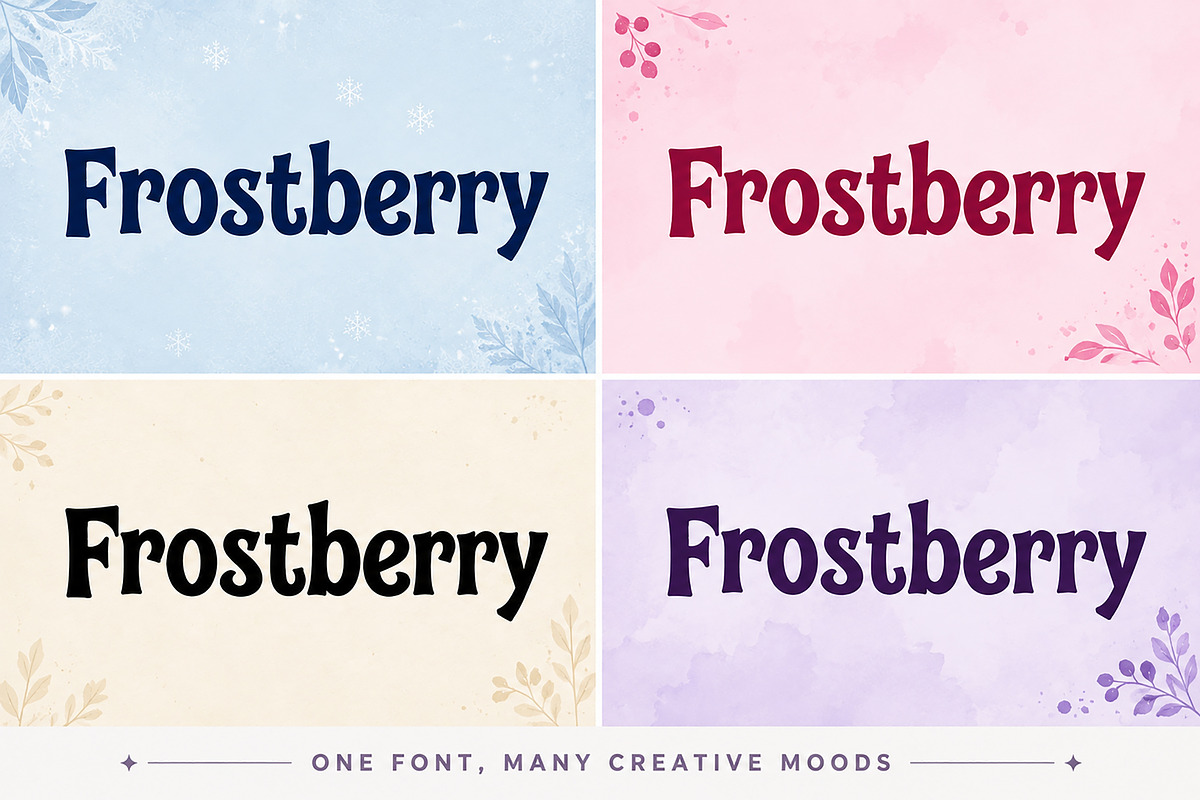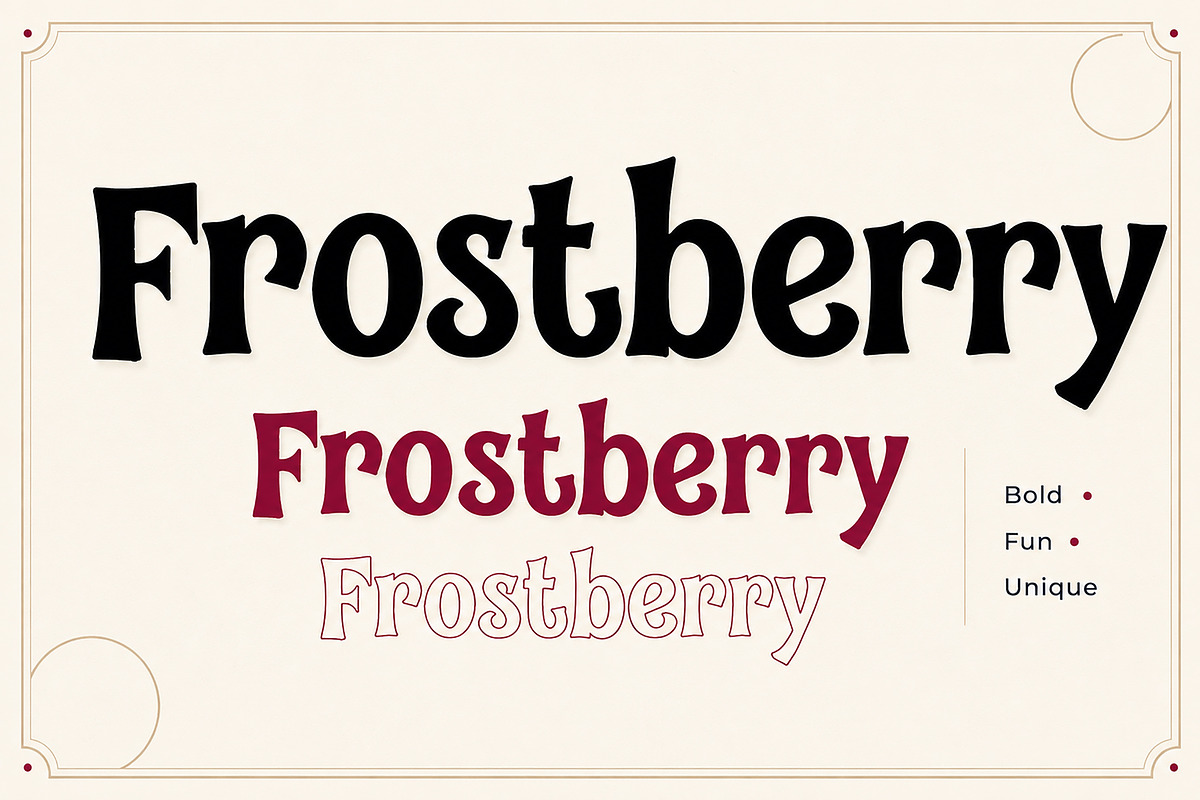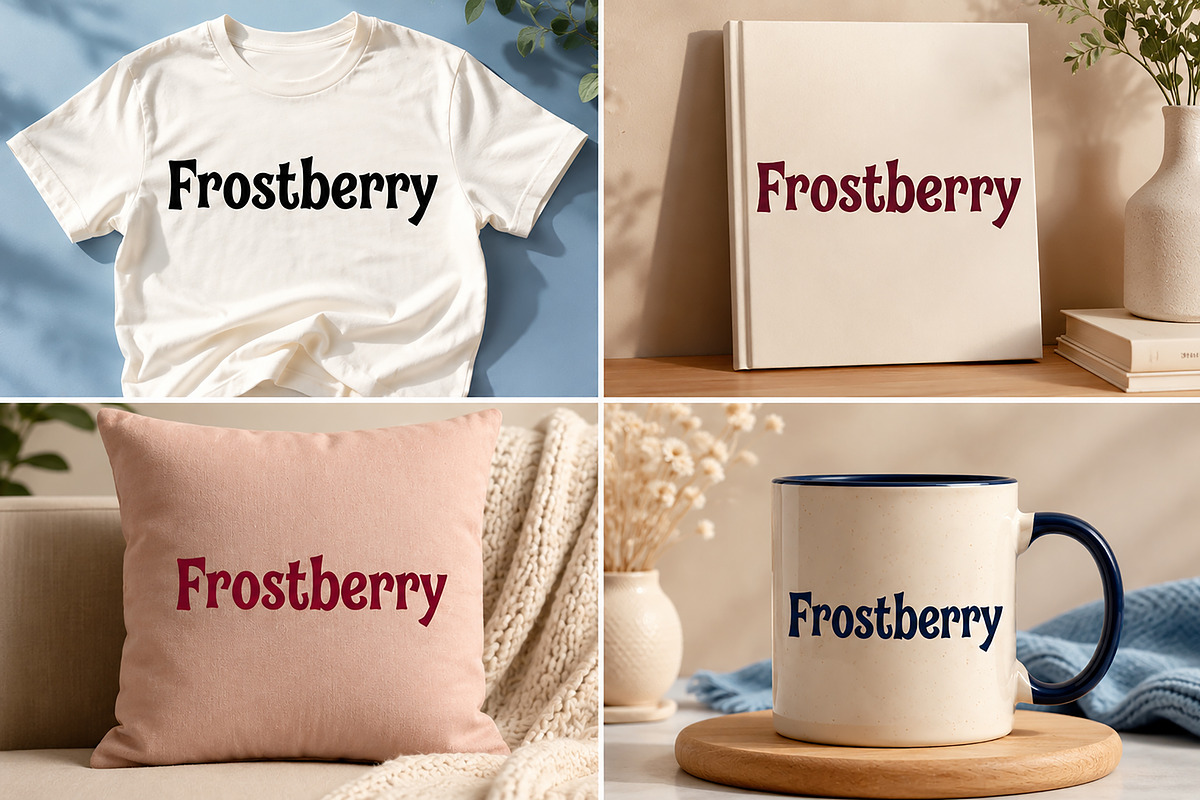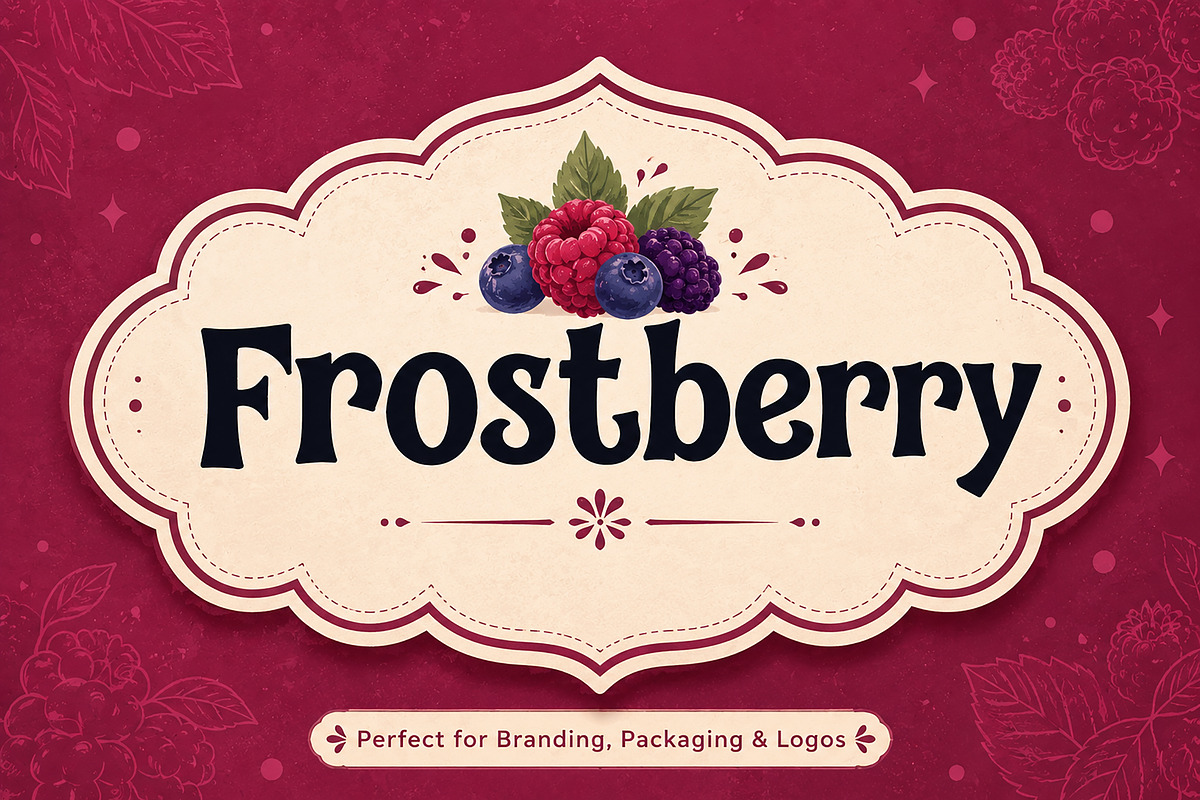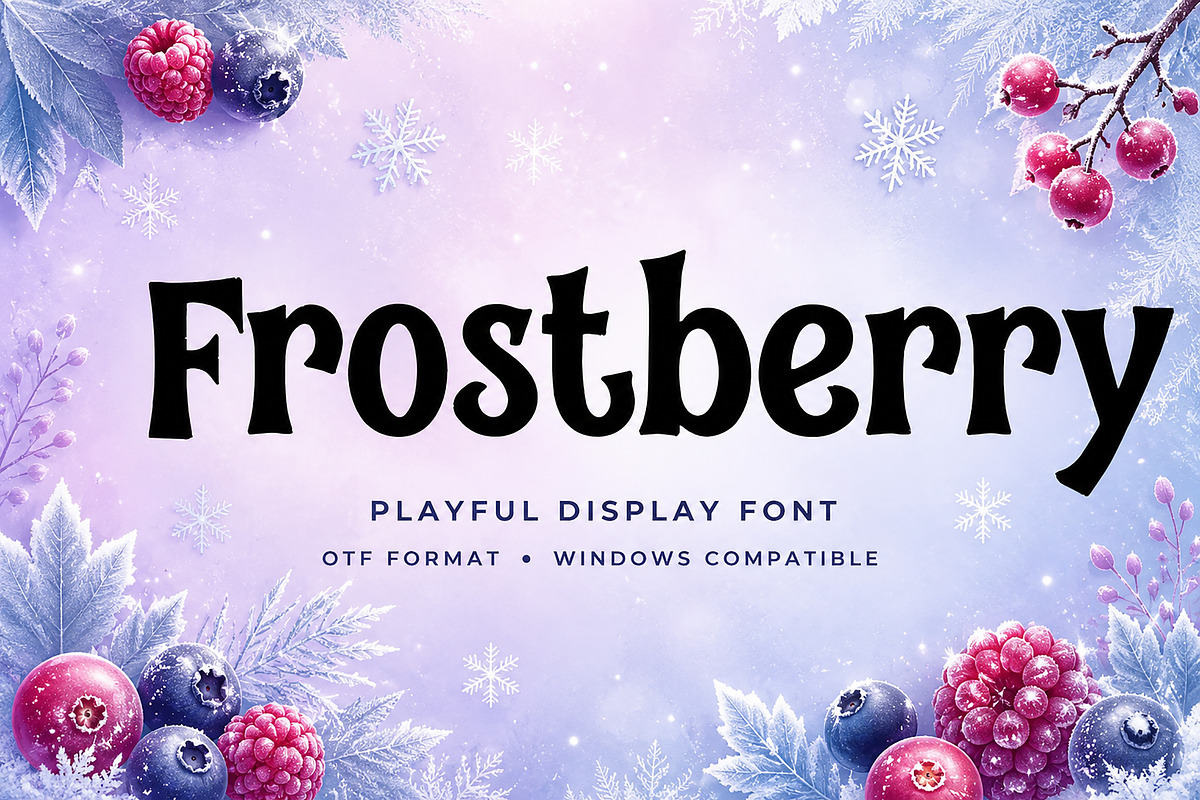
Frostberry
Frostberry is a playful and bold display font with a whimsical personality, designed to make your creative projects stand out. Its unique handcrafted letterforms, soft curves, and charming vintage-inspired style bring warmth, fun, and character to every design.
Whether you're creating eye-catching logos, product packaging, children's branding, stickers, posters, greeting cards, or social media graphics, Frostberry delivers a distinctive and memorable look that captures attention instantly.
Perfect for designers, small businesses, crafters, and creative entrepreneurs looking for a fun display typeface with a unique personality.
Food & Dessert Branding
Kids Branding
Posters
T-Shirts
Mugs
Pillows
Stickers
Labels
Invitations
Greeting Cards
Handmade Business Branding
Print-on-Demand Products
Creative Crafts